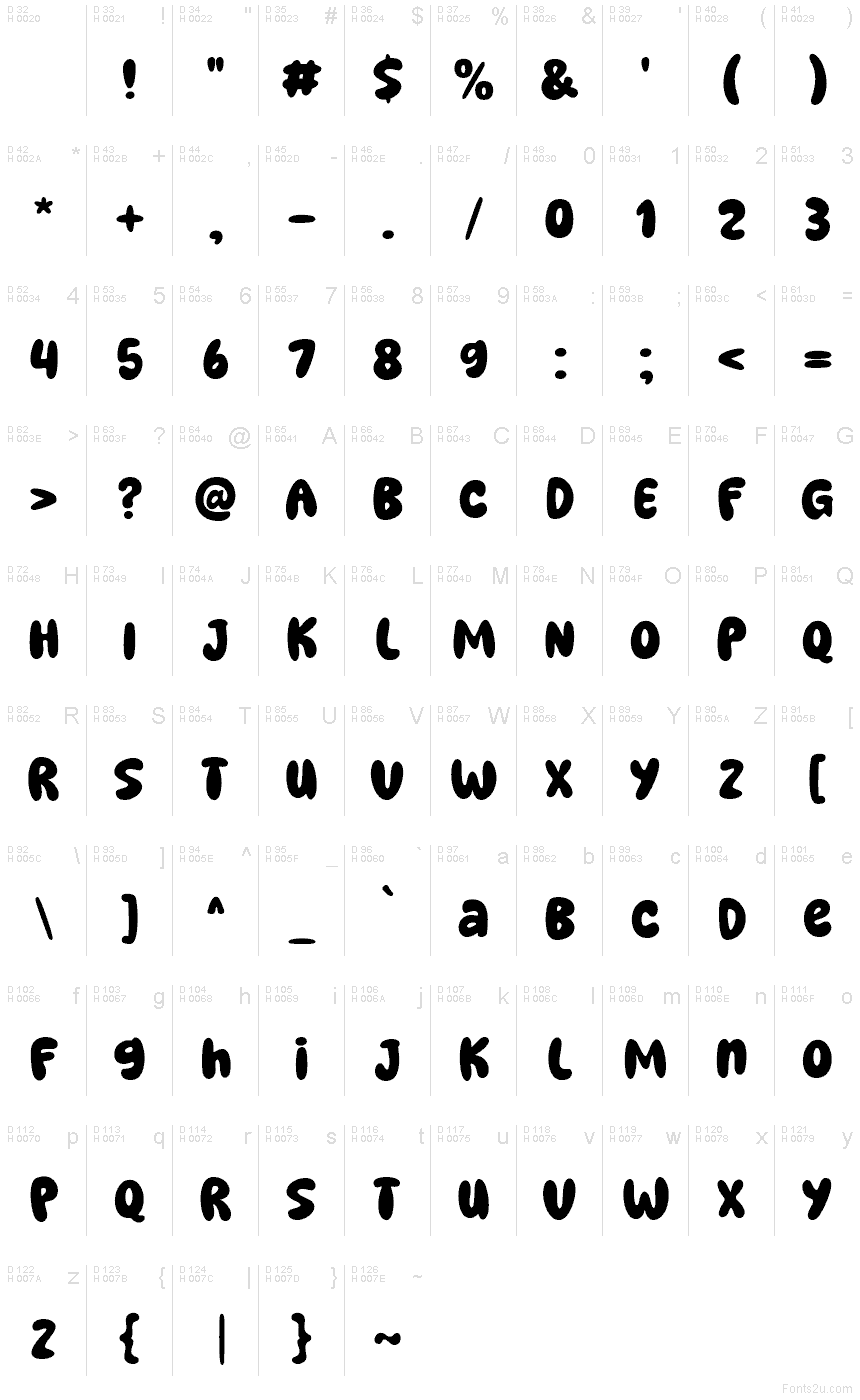
Super Jellyfish
Super Jellyfish font by fsuarez913 is a cartoon display font with a playful nature and casual vibe. Letters have a rounded bold style, giving them an approachable friendly appearance. The unique look of this retro-inspired typeface is further enhanced by its whimsical shapes and bubbly curved serifs.
Go on to use Super Jellyfish in crafted logotypes, kids appropriate cards, packaging, films/cartoons covers, comic books headlines, posters or magazine covers aimed at young audiences. It also works well in educational apps interfaces and book covers as well as games UX/UI design (especially puzzles).